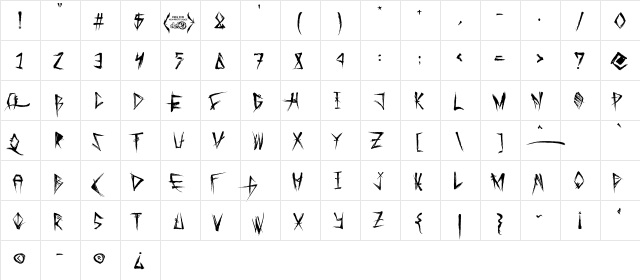
Tribal Threat Regular
Design Context for Tribal Threat Typeface
Tribal Threat is a composed and adaptable typeface that performs quietly and consistently across a wide range of design contexts.